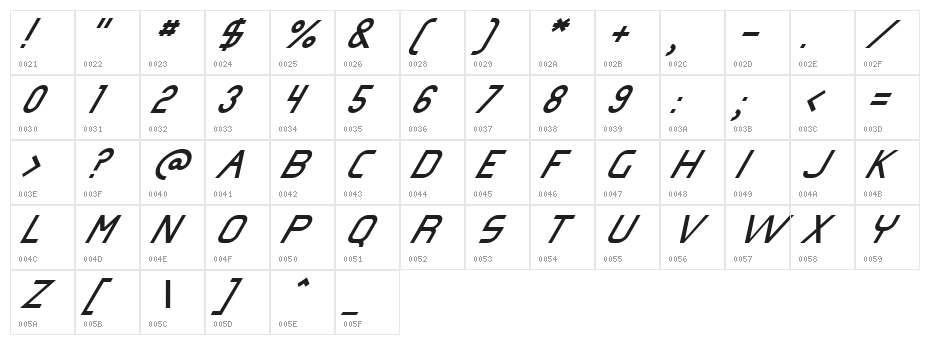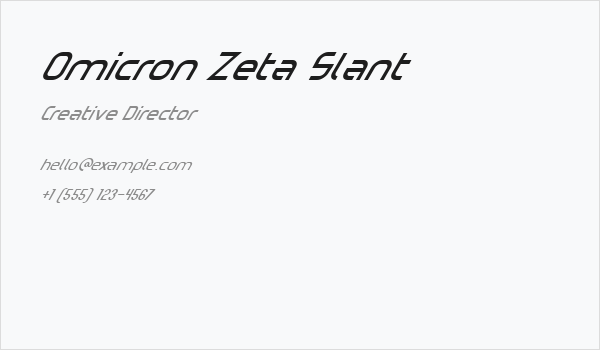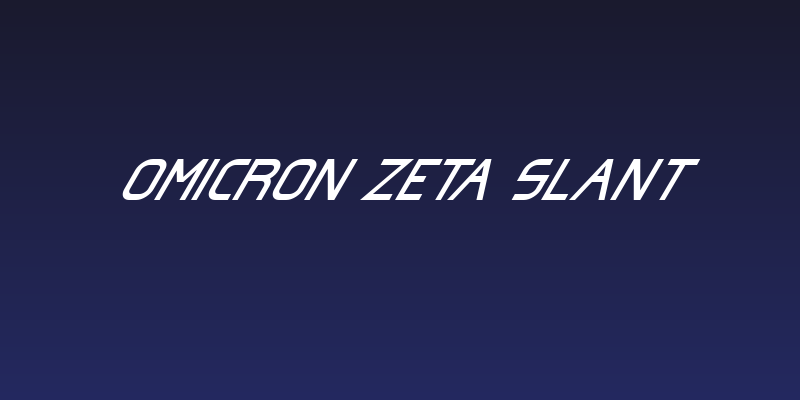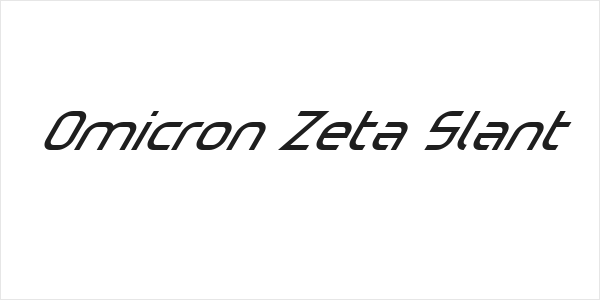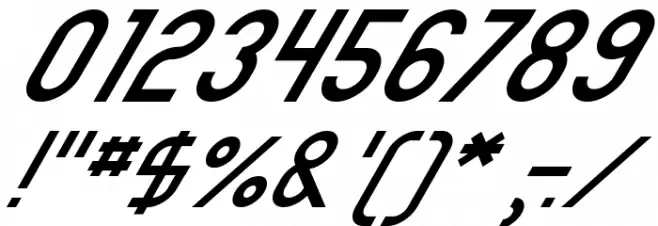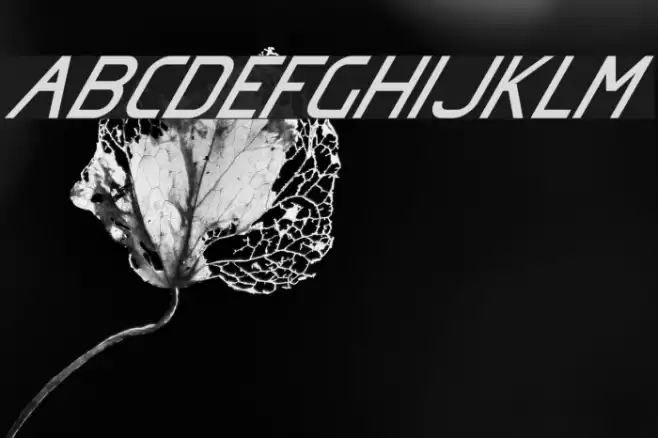
Omicron Zeta Slant Font
Omicron Zeta Slant Description
This font exhibits a sleek and modern design with a distinct slant, giving it a dynamic and forward-moving appearance. The characters are crafted with precision, featuring smooth curves and sharp edges that convey a sense of speed and efficiency. The uppercase letters are bold and assertive, while the lowercase letters maintain a consistent style that complements the overall aesthetic. The numerals are clear and easily distinguishable, making them suitable for various applications. Special characters are included, maintaining the font's cohesive style. This font's design is ideal for projects that require a contemporary and energetic feel.
| Use Case | Headlines, Logos, Branding |
| Proposed Projects | Ideal for branding, sports-related designs, automotive industry materials, and modern advertising campaigns. |